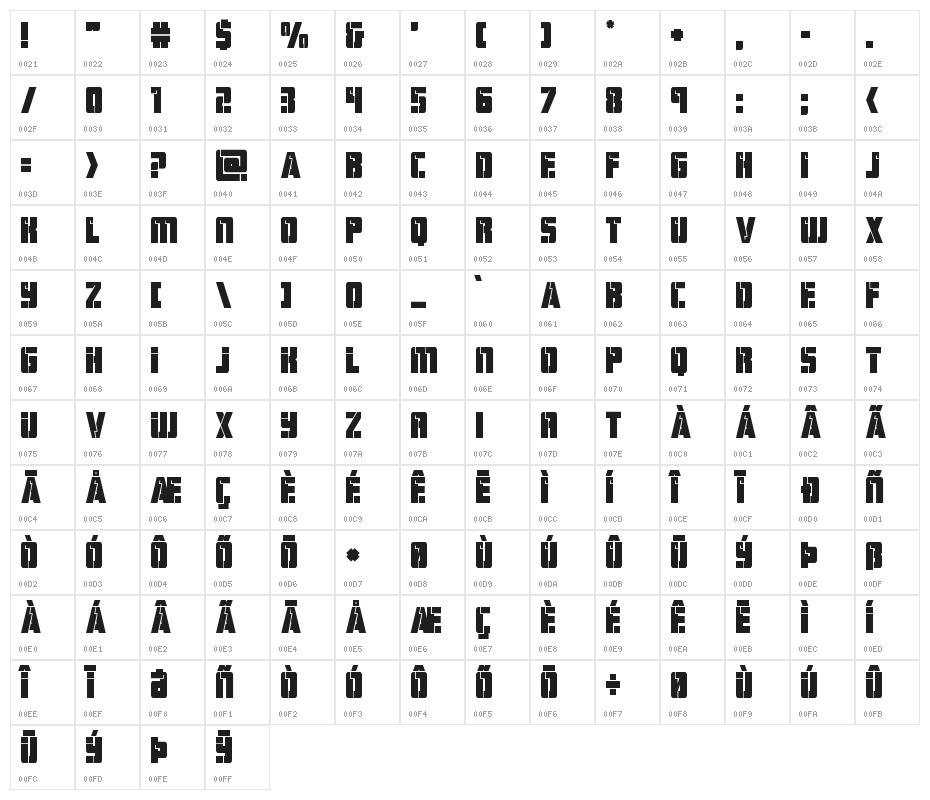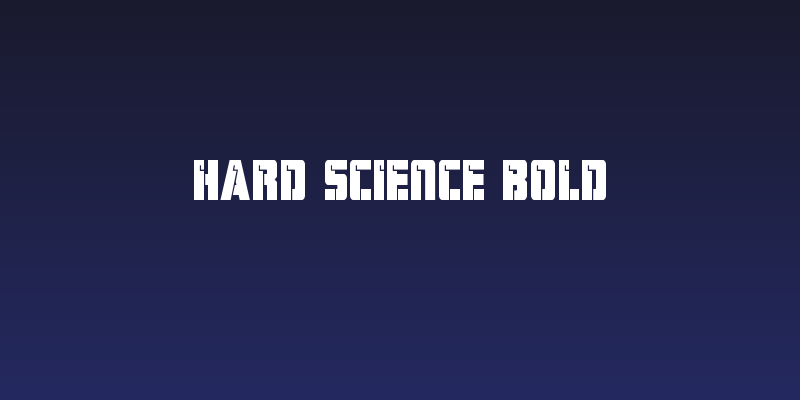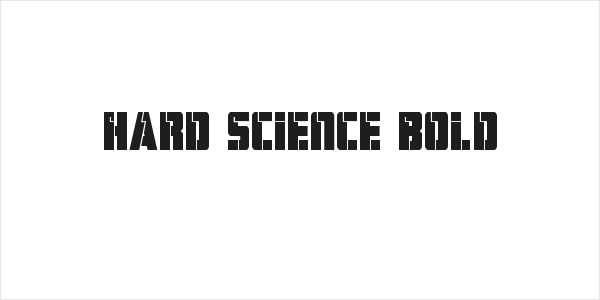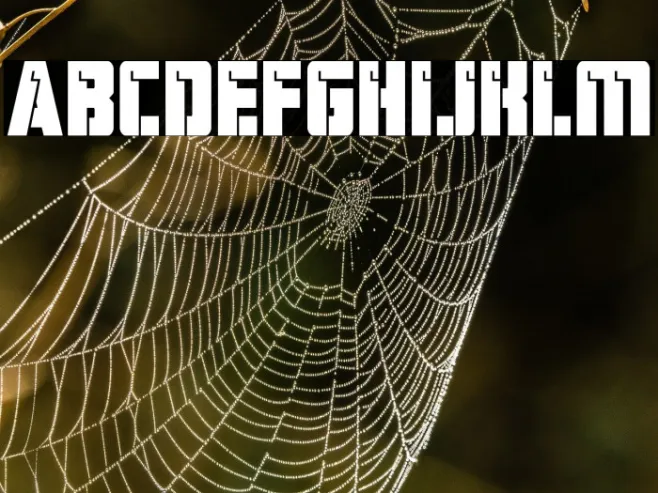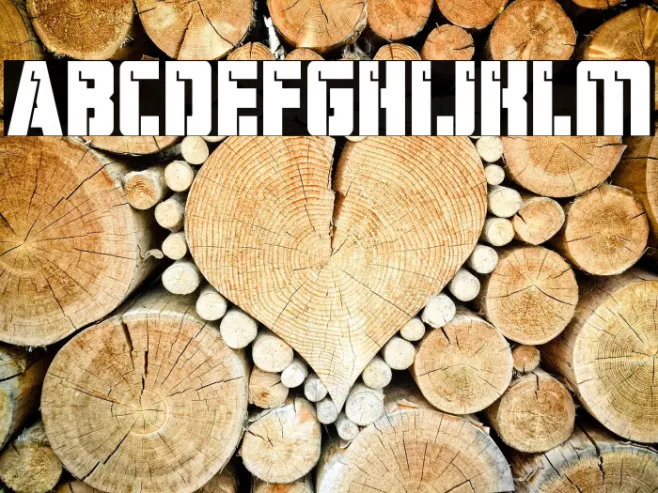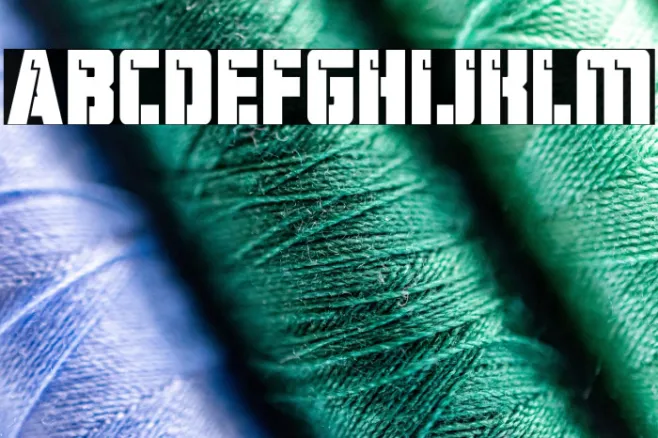
Hard Science Bold Font
Hard Science Bold Description
This font features a bold, geometric design with a strong, impactful presence. The characters are constructed with thick, block-like shapes that create a sense of solidity and strength. The angular cuts and sharp edges give it a futuristic and industrial feel, making it ideal for projects that require a modern and assertive look. The uppercase and lowercase letters maintain a consistent style, while the numbers and special characters complement the overall aesthetic. The font's design is highly legible, even at smaller sizes, due to its clear and distinct letterforms.
| Proposed Projects | Ideal for technology branding, sci-fi posters, video game titles, and industrial-themed designs. |